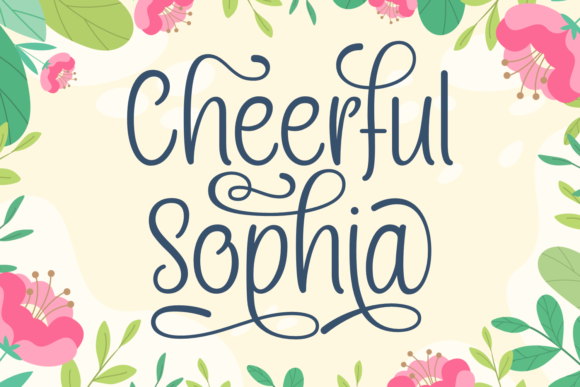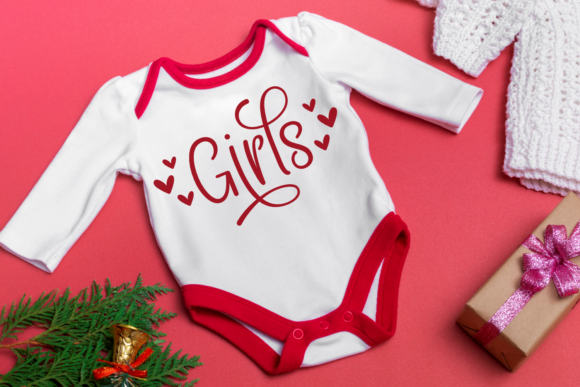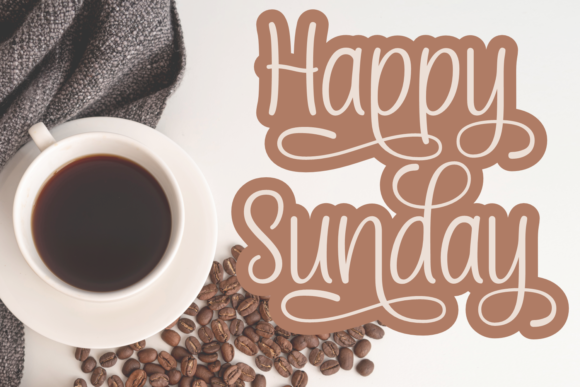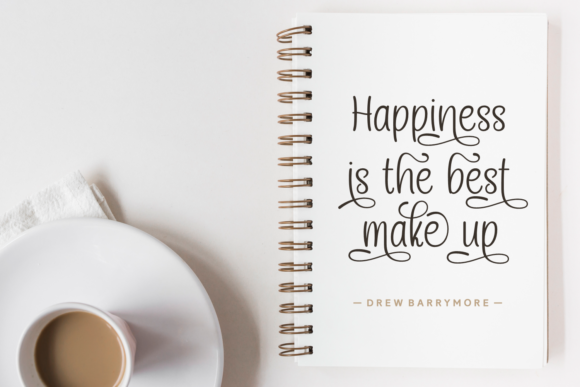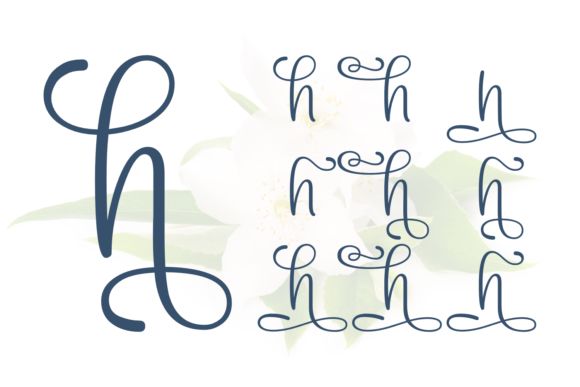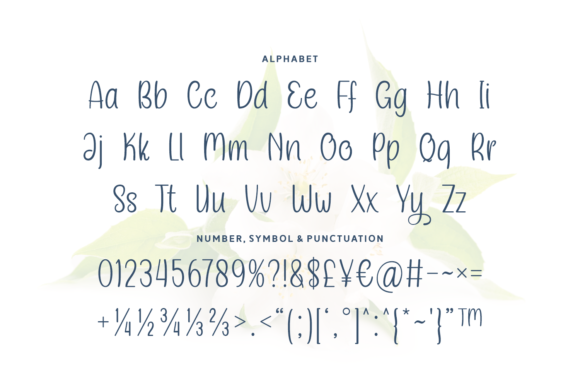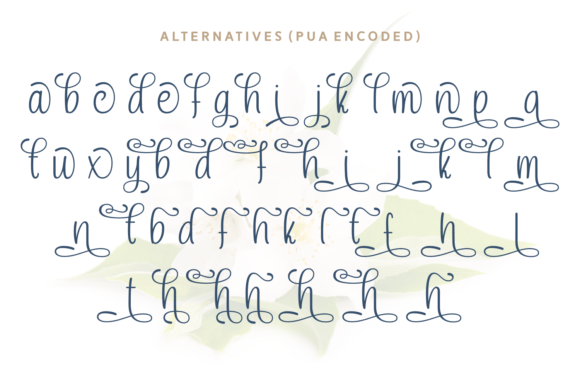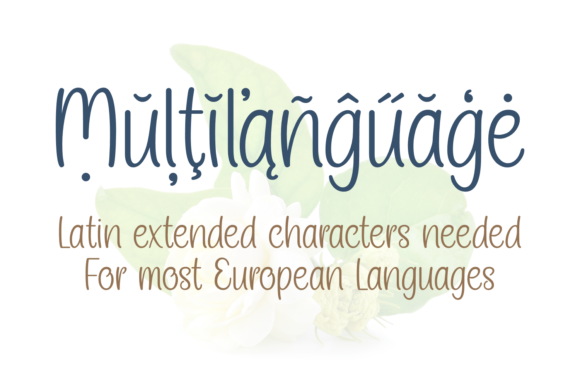
Cheerful Sophia Font
About Cheerful Sophia Font
Cheerful Sophia is a gorgeous, flowing, and trendy script font designed to bring fun and jolly vibes to various design ideas. With its lively and dynamic style, this font is well-suited for projects that demand a cheerful and upbeat aesthetic. Whether used for branding, invitations, posters, or any other creative application, Cheerful Sophia adds a touch of playfulness and trendiness to your designs.
The flowing and trendy nature of Cheerful Sophia makes it versatile, adapting seamlessly to different design contexts. Its dynamic script style imparts a sense of energy and joy, making it an ideal choice for projects that aim to convey a lighthearted and vibrant atmosphere.
The PUA encoding feature enhances the font’s accessibility, allowing you to easily access a wide array of glyphs and swashes. This provides designers with the freedom to customize and personalize their designs effortlessly, adding unique touches to make their projects stand out.
In summary, Cheerful Sophia is more than just a font; it’s a gorgeous and lively script font that brings a sense of fun and trendiness to your designs. Its versatility and PUA encoding make it a valuable asset for a variety of creative projects. Let Cheerful Sophia be the font that infuses your branding, invitations, and posters with cheerful and dynamic vibes, making your designs stand out with joy and style.